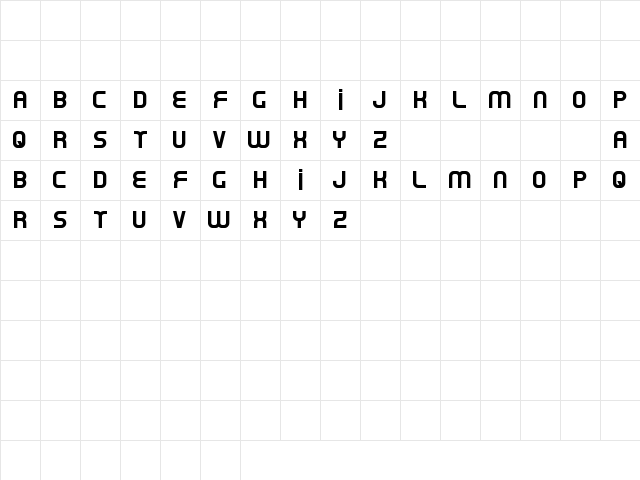
Oxin Regular Free Font
Oxin Regular
Designer: Carlos Matteoli
Oxin Family
Oxin Regular
Complete Oxin Regular glyph index. Displaying only characters natively supported by Oxin Regular font.
Design Context for Oxin
Oxin is a composed and adaptable typeface that performs quietly and consistently across a wide range of design contexts.